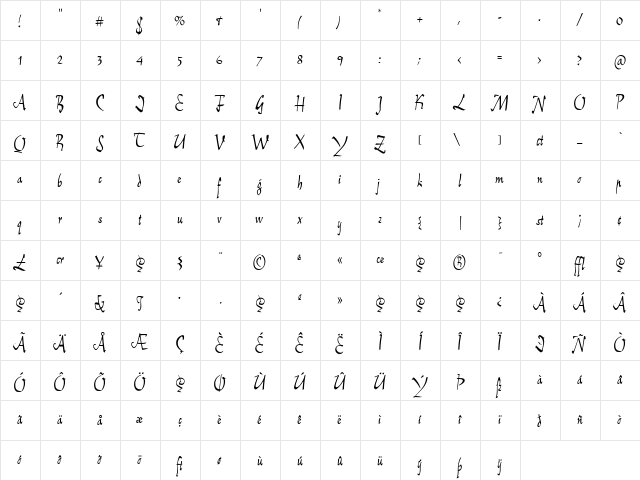
ReinerScript Regular
| Foundry | Copr. Tobias Frere-Jones. Produced by The Font Bureau, Inc |
| Copyright | Copr.1993, Tobias Frere-Jones. Produced by The Font Bureau, Inc. Based on a design by Imre Reiner. |
Design Context for ReinerScript Typeface
ReinerScript brings a calligraphic fluidity to the page — its connecting strokes and expressive curves give it an unmistakably human quality.